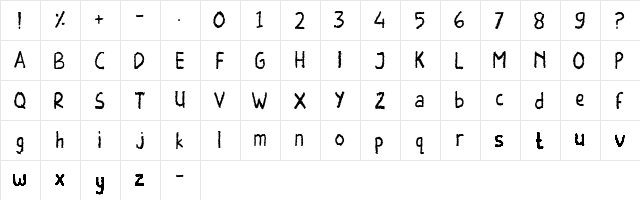
Kekeringan Regular
| Designer | Oziel89 Studio |
Design Context for Kekeringan Typeface
Kekeringan is a composed and adaptable typeface that performs quietly and consistently across a wide range of design contexts.